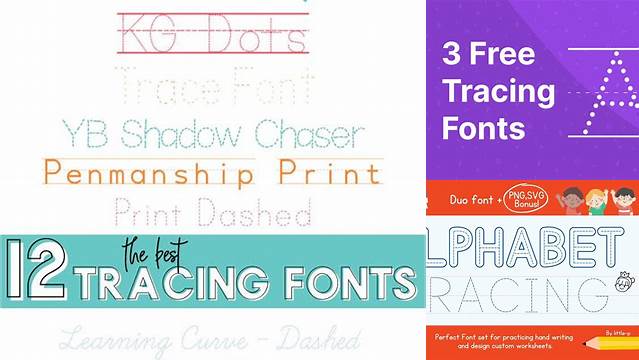
Best Tracing Fonts For Word (Free Download)
Finding the perfect tracing font for Microsoft Word can be a game-changer, especially if you're working on educational materials or creative projects. A good tracing font can make learning to write more engaging and fun. Plus, who doesn't love free stuff? Let's dive into the world of tracing fonts and explore how to get your hands on the best ones without spending a dime. Whether you're a teacher, a parent, or just someone who enjoys typography, this guide is for you!
Exploring Free Tracing Fonts for Microsoft Word
Free tracing fonts for Microsoft Word are a fantastic resource for educators and parents alike. These fonts allow you to create worksheets and activities that help children learn to form letters correctly. The beauty of these fonts lies in their accessibility; you don't have to break the bank to provide high-quality learning materials. Many websites offer a variety of tracing fonts that you can download and install on your computer for use in Microsoft Word. When searching for free tracing fonts, it's essential to ensure they are compatible with Microsoft Word and come with a license that allows for both personal and educational use. Some fonts may have restrictions, so always read the fine print! Exploring the different styles and weights of these fonts can also enhance the learning experience, making it more engaging and effective for young learners. Tracing fonts can include dotted lines, dashed lines, or even grayed-out characters that students can trace over. The goal is to provide a visual guide that helps them develop muscle memory and improve their handwriting skills.
Creating Practice Sheets with Tracing Fonts
Alright, now that you have your tracing fonts installed, let's talk about creating practice sheets with tracing fonts. The first step is to open Microsoft Word and create a new document. Set your page size to something standard like A4 or letter size. Next, choose your tracing font from the font menu. Type the letters, words, or sentences you want your students or children to practice. You might want to use a larger font size so that the tracing is easier. Think about the layout of your practice sheet. Do you want multiple lines of the same letter, or a mix of different letters and words? A good idea is to start with individual letters and then move on to simple words. Add some visual cues to make the practice sheet more engaging. You can insert images or use different colors to highlight specific parts. For example, you could use a different color for vowels or consonants. To make the tracing even easier, use the text effects options in Word to add a dotted or dashed outline to the letters. This provides a clear guide for the person who's tracing. Once you're happy with your practice sheet, save it as a PDF file. This ensures that the formatting stays consistent when you print it. Now, print out your practice sheets and let the tracing begin! Creating practice sheets with tracing fonts is a simple and effective way to help kids develop their handwriting skills.
Best Tracing Fonts for Cursive Writing
When it comes to teaching cursive, having the right font can make all the difference. Best tracing fonts for cursive writing often mimic traditional handwriting styles, making it easier for learners to transition from tracing to writing independently. Look for fonts that have clear, well-defined letterforms and smooth connections between letters. Some popular cursive tracing fonts include “Learning Curve Dashed,” “Trace Me,” and “Cursive Standard.” These fonts provide a clear visual guide without being overly complicated. When selecting a cursive tracing font, consider the age and skill level of the learner. Younger children may benefit from fonts with larger, simpler letterforms, while older students can handle more intricate styles. Also, make sure the font is compatible with Microsoft Word and easy to install. Before creating practice sheets, test out different font sizes and line spacing to find what works best. Remember, the goal is to provide a supportive and encouraging learning environment. Using a variety of cursive tracing fonts can also keep things interesting and help learners develop a more adaptable handwriting style. Encourage them to practice regularly and celebrate their progress. With the right font and a little patience, anyone can master the art of cursive writing.
Tracing Fonts for Kids with Learning Disabilities
For kids with learning disabilities, the right tracing font can be a game-changer. Tracing fonts for kids with learning disabilities need to be extra clear and easy to follow. Think about fonts that have simple shapes and consistent letterforms. Avoid anything too fancy or decorative, as it can be distracting. Some great options include fonts like “OpenDyslexic Trace” or “Lexend Deca Trace.” These fonts are specifically designed to be more readable for people with dyslexia and other learning challenges. When creating practice sheets, use a larger font size and plenty of white space around the letters. This helps reduce visual clutter and makes it easier for kids to focus. You might also consider using different colors to highlight specific parts of the letters, like the starting point or the direction of the stroke. Make sure the tracing lines are clear and easy to see. Dotted or dashed lines work well, but avoid anything too faint. Remember to be patient and encouraging. Learning to write can be tough for kids with learning disabilities, so it's important to create a supportive and positive environment. Celebrate small victories and focus on progress, not perfection. With the right tools and a little bit of understanding, you can help kids with learning disabilities develop their handwriting skills and build their confidence.
How to Customize Tracing Fonts in Word
Okay, so you've got your tracing font installed, but what if you want to tweak it a bit? How to customize tracing fonts in Word, you ask? Well, Word offers a few cool options to help you tailor the font to your specific needs. First off, you can easily adjust the font size. Larger fonts are generally better for tracing, especially for younger kids or those with visual impairments. Just select the text and choose a larger size from the font size dropdown menu. You can also change the color of the font. Using a light gray or a pale blue can make the tracing lines less overwhelming. To do this, select the text, click on the font color icon, and choose your desired color. Another neat trick is to add a text effect, like an outline or a shadow. This can make the tracing lines stand out even more. Go to the "Format" menu, select "Text Effects," and experiment with different options. If you want to create a dotted or dashed line effect, you can use the "Borders and Shading" feature. Select the text, go to the "Format" menu, choose "Borders and Shading," and select a dotted or dashed line style. You can also adjust the spacing between letters and lines. This can make the tracing easier by providing more room to maneuver. To do this, go to the "Format" menu, select "Paragraph," and adjust the line spacing and character spacing options. By customizing your tracing fonts in Word, you can create practice sheets that are perfectly tailored to your needs.
Free vs. Paid Tracing Fonts: Which Is Better?
Alright, let's get real about the age-old question: free vs. paid tracing fonts: which is better? Well, it really depends on your needs and budget. Free tracing fonts are fantastic if you're just starting out or don't want to spend any money. There are plenty of high-quality free fonts available online that can meet your basic tracing needs. However, free fonts often come with some limitations. They might not have as many variations or glyphs as paid fonts, and they might not be as well-designed. Plus, you need to be careful about licensing. Some free fonts are only free for personal use, and you might need to purchase a commercial license if you want to use them for business or educational purposes. Paid tracing fonts, on the other hand, usually offer more features and flexibility. They often come with a wider range of styles, weights, and glyphs, and they're typically designed by professional typographers. This means they're more likely to be visually appealing and easy to read. Paid fonts also usually come with a commercial license, which gives you more freedom to use them in various projects. So, which is better? If you're on a tight budget or just need a basic tracing font for personal use, a free font might be the way to go. But if you need more features, flexibility, or a commercial license, a paid font is probably worth the investment. Ultimately, the best tracing font is the one that meets your specific needs and helps you achieve your goals.
Creating Alphabet Tracing Worksheets
Creating alphabet tracing worksheets can be a fun and effective way to help kids learn their ABCs. Start by opening Microsoft Word and creating a new document. Choose a tracing font that you like and install it on your computer. Next, type out the alphabet in both uppercase and lowercase letters. Use a large font size so that the letters are easy to trace. You can arrange the letters in a straight line or in a grid format. To make the worksheet more engaging, add some colorful images or borders. You can also include some simple words that start with each letter of the alphabet. For example, A for Apple, B for Ball, and so on. To create the tracing effect, use the text effects options in Word to add a dotted or dashed outline to the letters. This provides a clear guide for the child to follow. You can also use a light gray color for the letters, so that they're not too overwhelming. Once you're happy with your worksheet, save it as a PDF file and print it out. You can also laminate the worksheet to make it more durable. Creating alphabet tracing worksheets is a simple and rewarding way to help kids develop their pre-writing skills and learn the alphabet.
Incorporating Images into Tracing Worksheets
Want to make your tracing worksheets more engaging? Incorporating images into tracing worksheets is a fantastic way to do it! You can use images to illustrate the letters or words that kids are tracing. For example, if you're tracing the letter